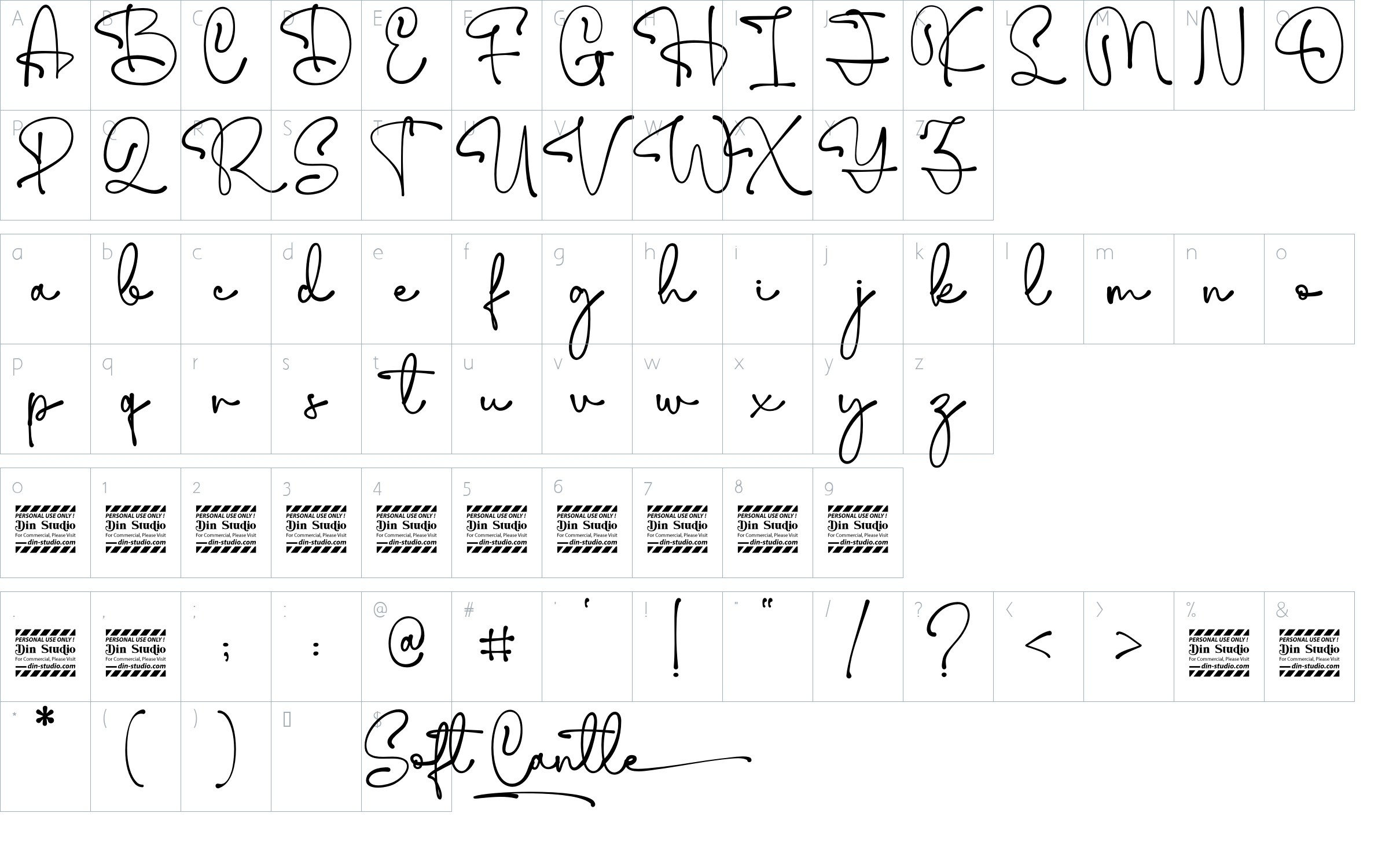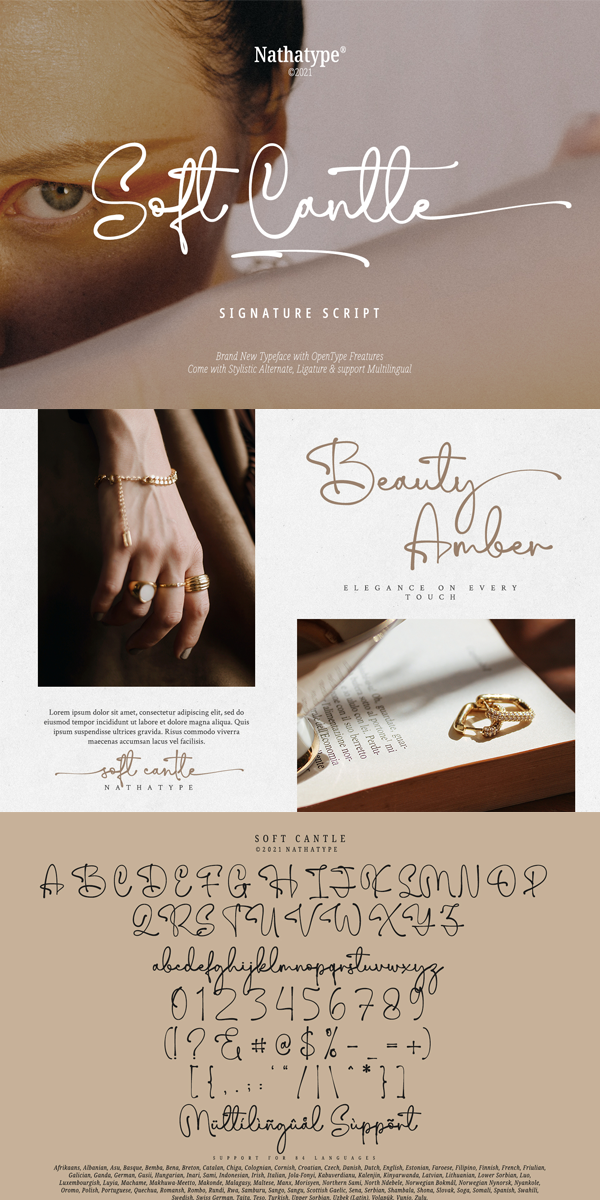
Soft Cantle Font
About Soft Cantle
Soft Cantle is a handcrafted font designed to bring your branding to life and add a touch of elegance, modernity and style. It is perfect for social media branding projects, fashion designs, printed quotes, packagings, or even as a stylish text overlaying any background images.
Our font always includes Multilingual Support to make your branding reach a global audience. See the previews above to get to know how to use them. Happy Designing!